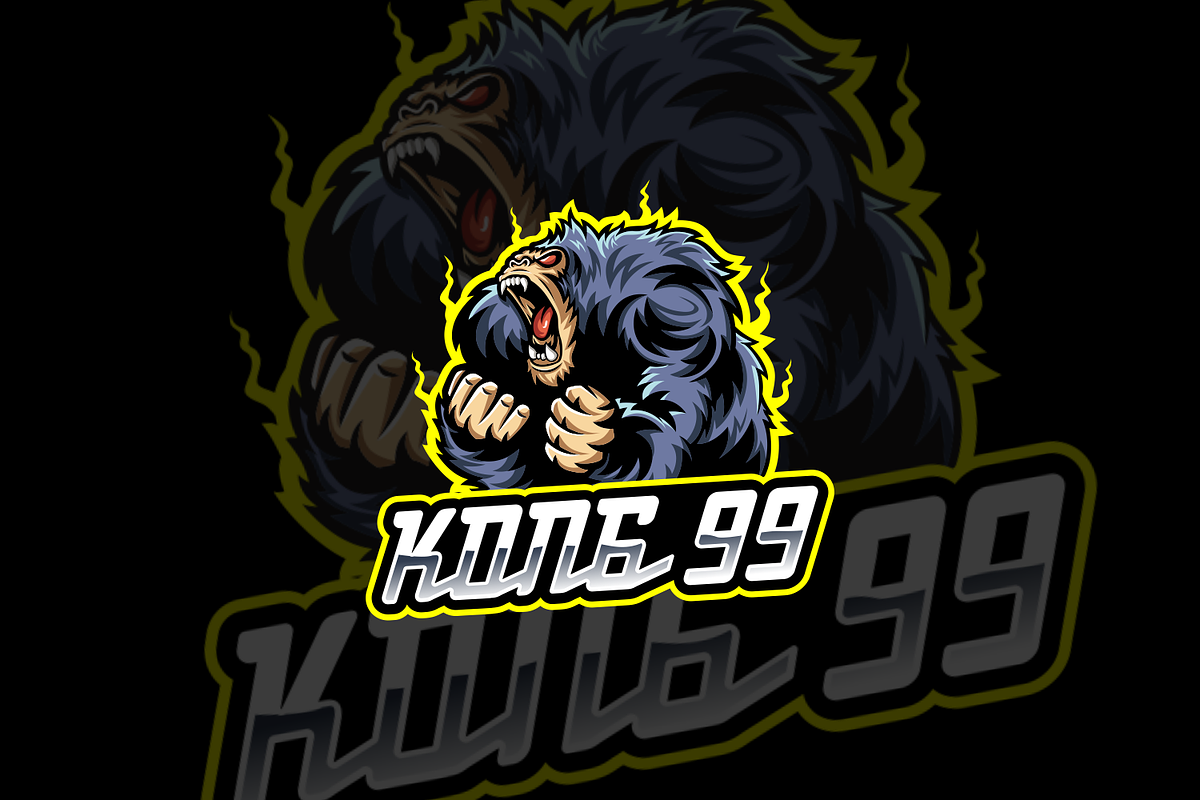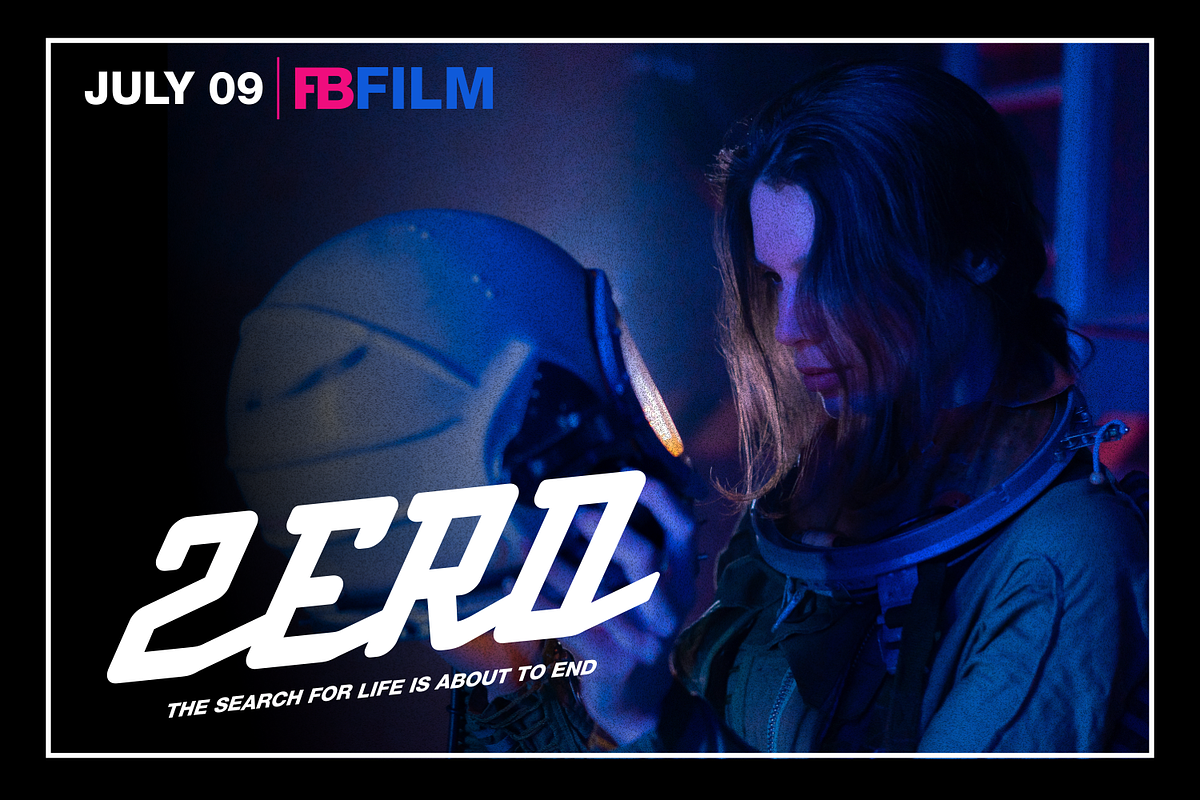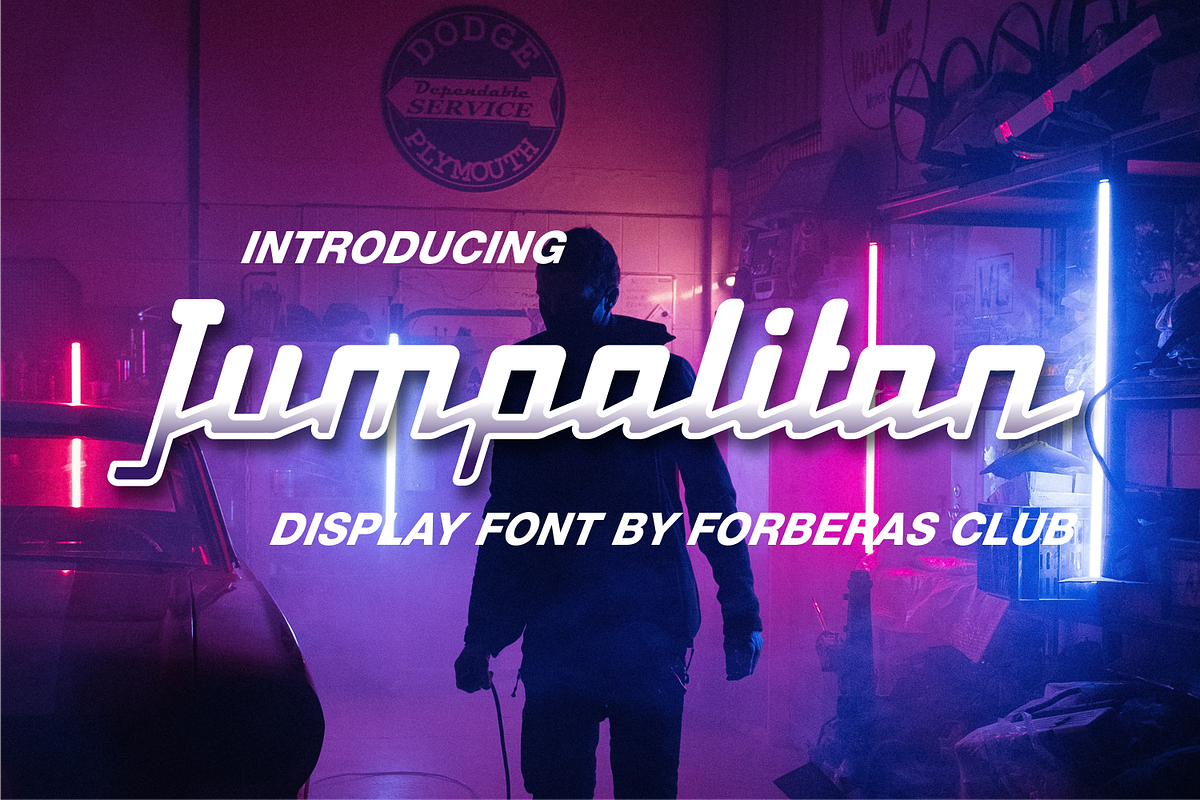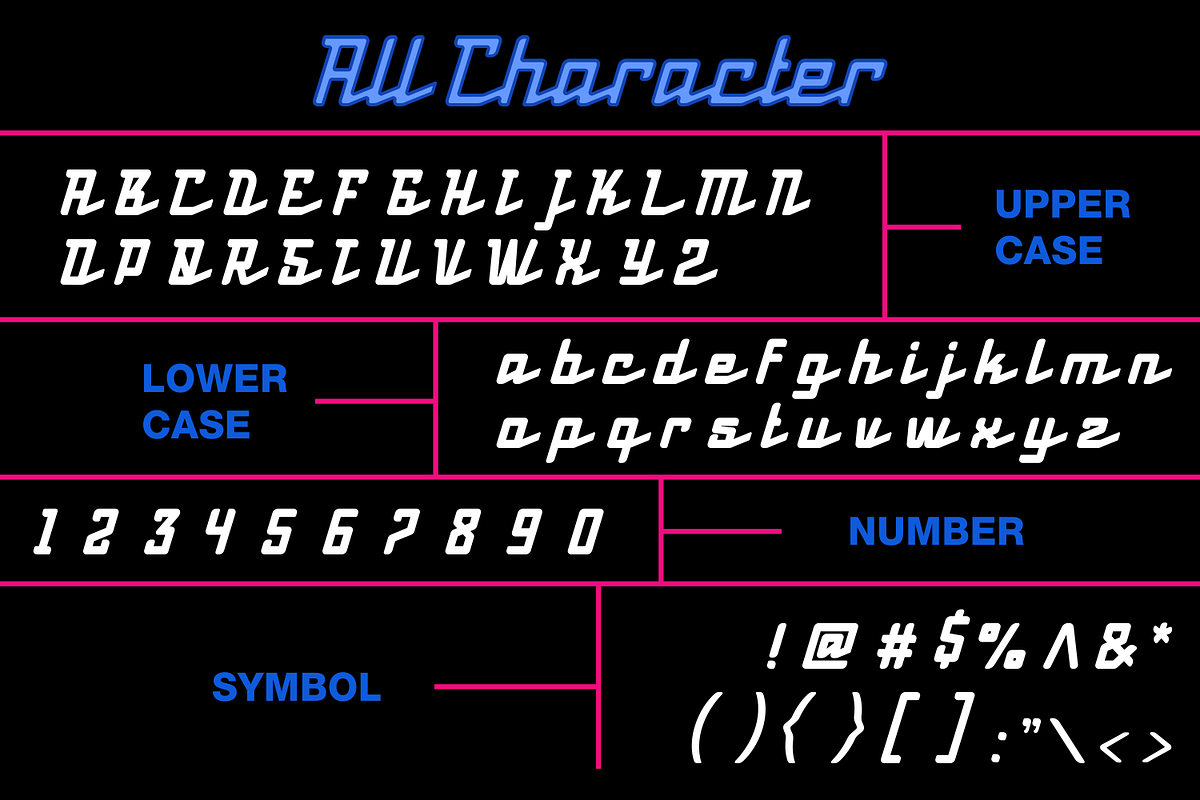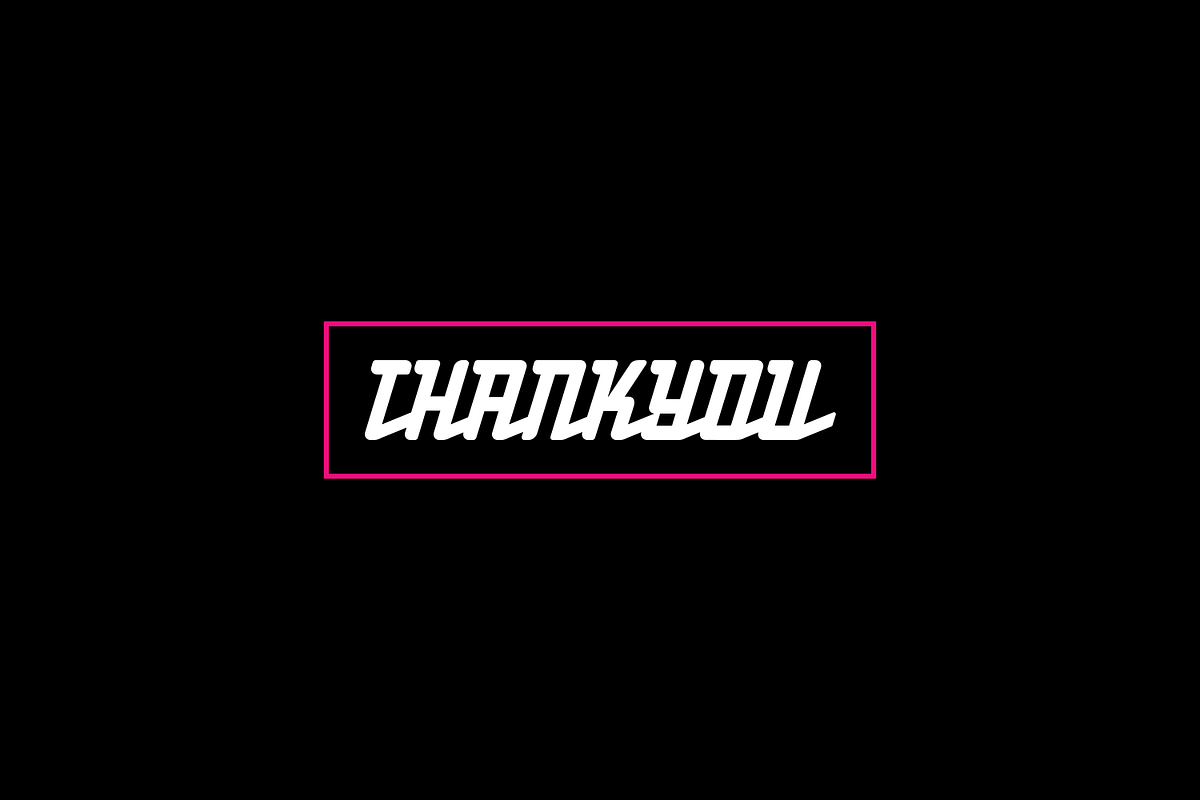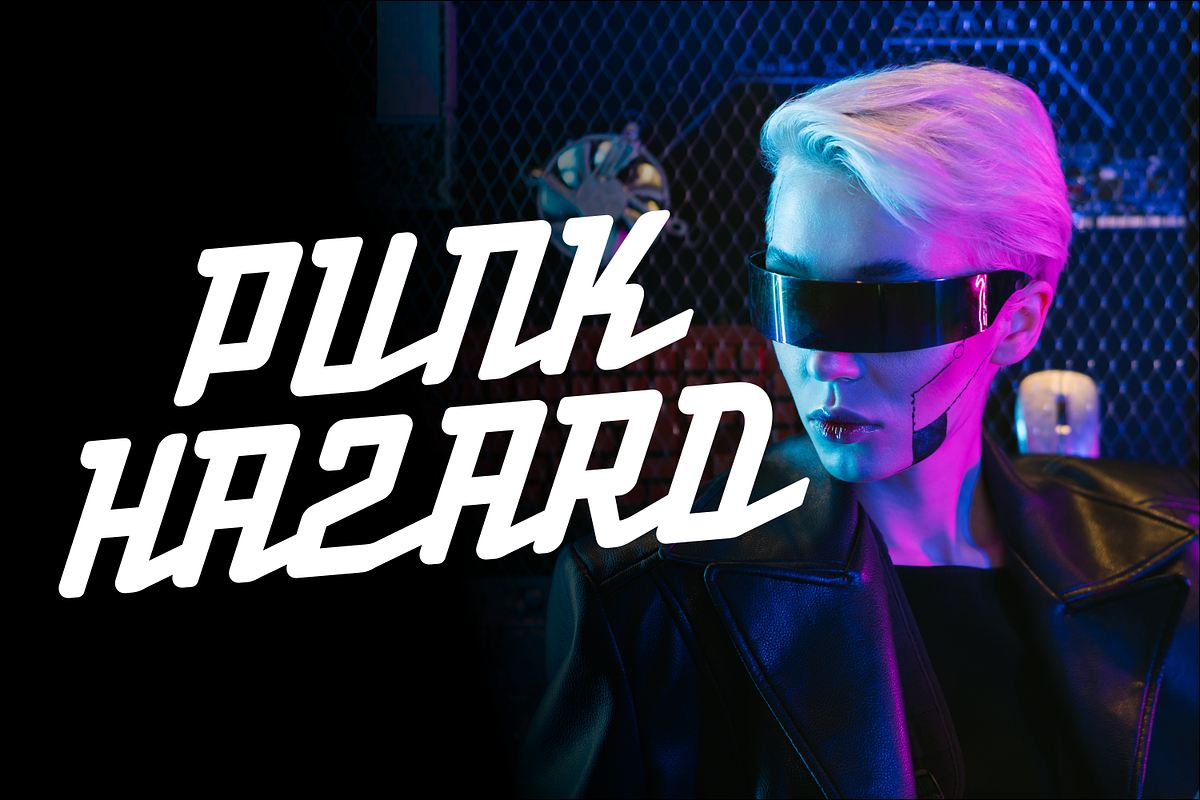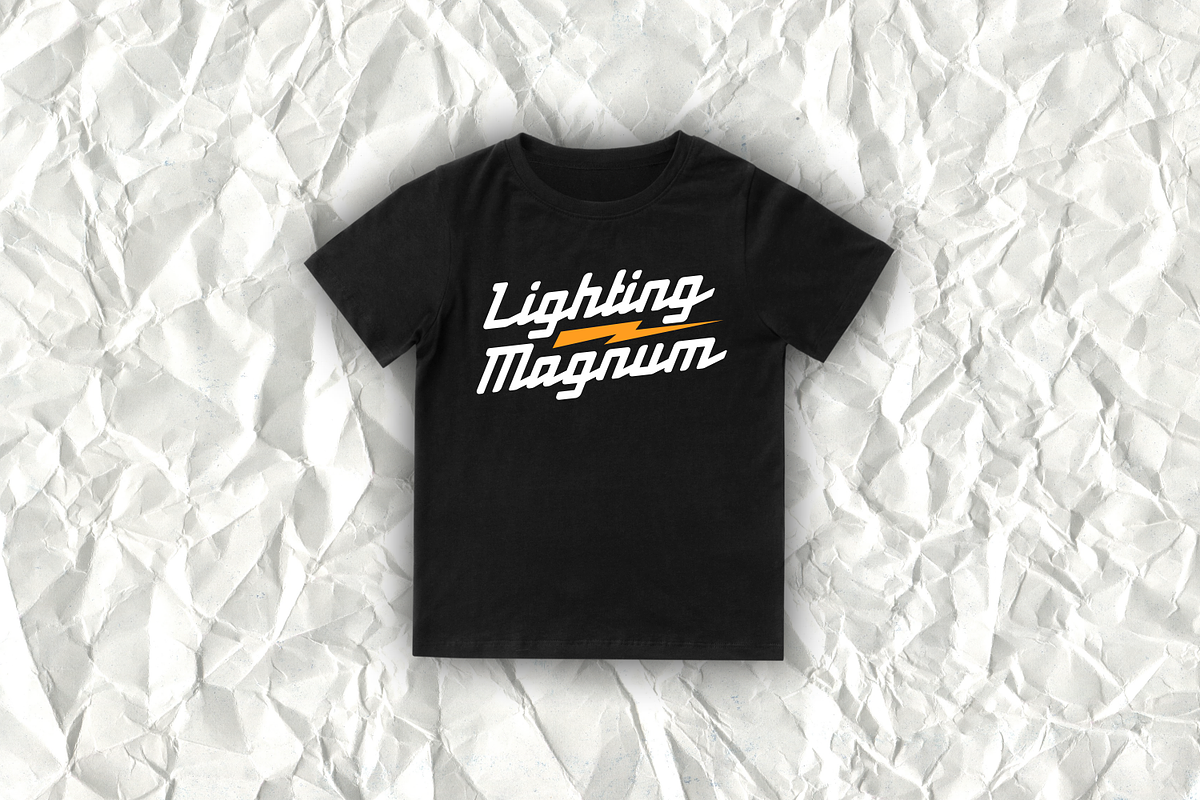
Jumpalitan | Modern Display
Introducing Jumpalitan by Forberas
Modern and beautiful handwritten script font! Great for wedding greeting cards, logos, branding materials, Invitation, business cards, quotes, posters, Cricut artwork and more!